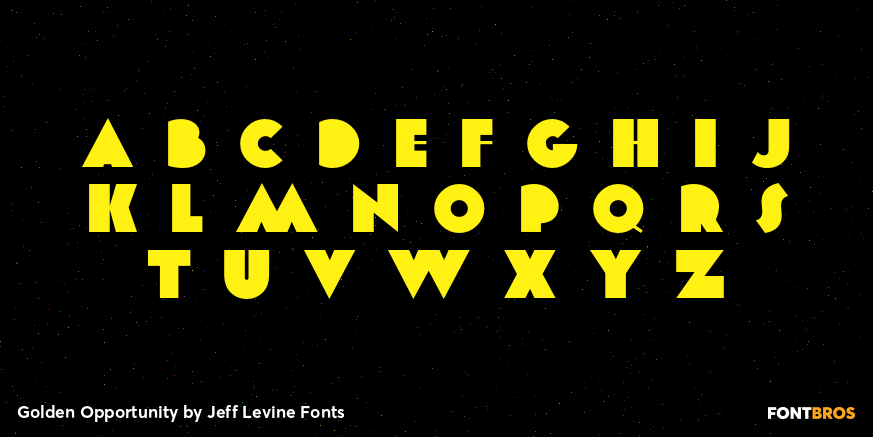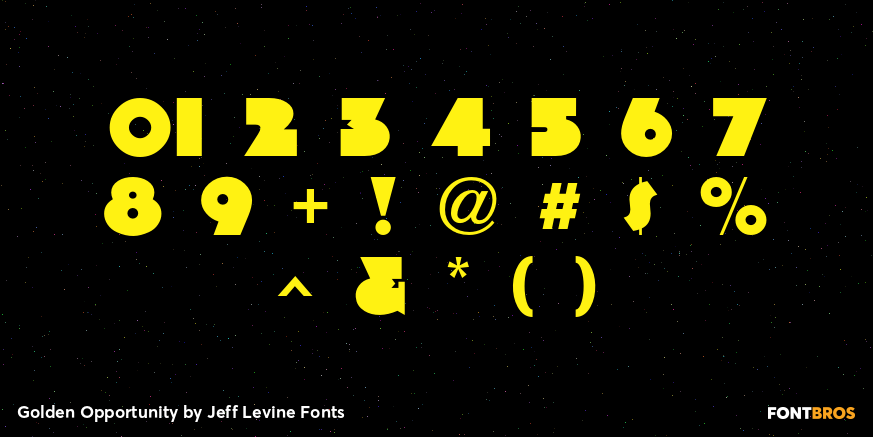
Golden Opportunity
The cover of vintage sheet music for 'With Plenty of Money and You (The Gold Diggers' Lullaby)” from the Warner Brothers musical 'Gold Diggers of 1937” had the movie title hand-lettered in a classic Art Deco style.
Bold, brash and totally fun, this became the model for Golden Opportunity JNL.